Racing and motorsport branding needs to feel fast before anyone even reads the words. Sharp italics, bold angles, aggressive lines, these are the details that make a racing font feel like it’s already halfway down the straightaway.
Here are 4 fonts from Artisan Font built to bring that high-speed, motorsport energy to your design.
1. Fastrek
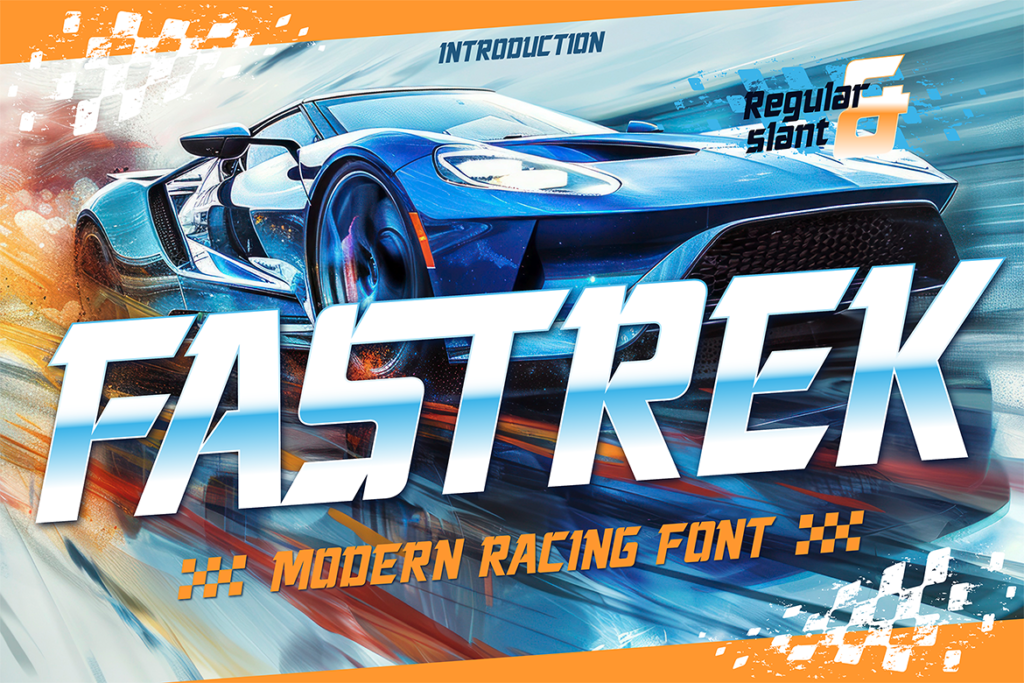
Fastrek is a modern racing font with a sharp, forward-leaning structure that feels built for velocity. It’s bold, dynamic, and instantly reads as fast.
Great for: racing team branding, automotive graphics, and motorsport event posters.
2. Stiger
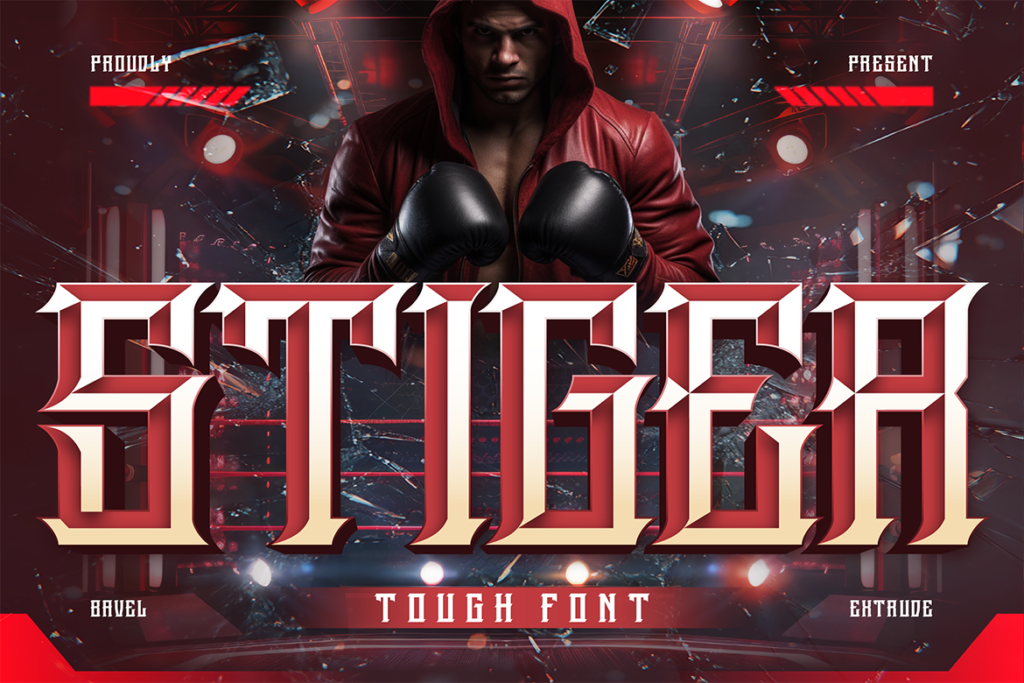
Stiger is a tough font with a distressed, aggressive edge. It brings a raw, hard-hitting energy that works great for anything wanting a rugged, no-nonsense motorsport feel.
Great for: racing merchandise, tough automotive branding, and bold headline graphics.
3. Sencito
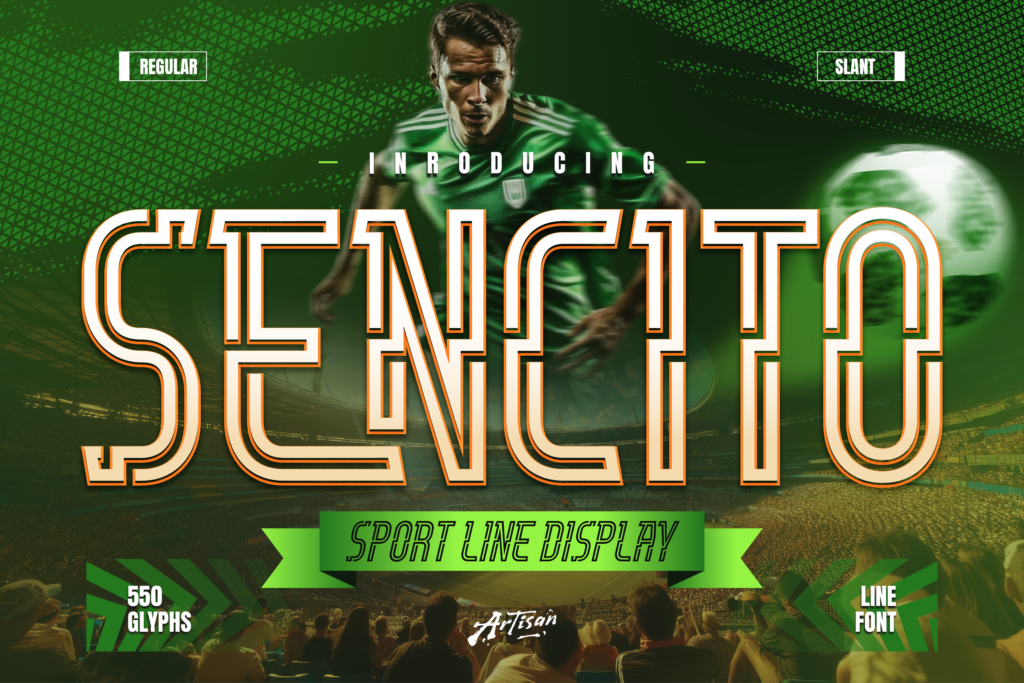
Sencito is a sport line display font with a bold outlined structure, giving it energy and movement without losing clarity. It’s versatile enough for both branding and bold callouts.
Great for: racing branding, sports team logos, and athletic event graphics.
4. Frestype Atlethic
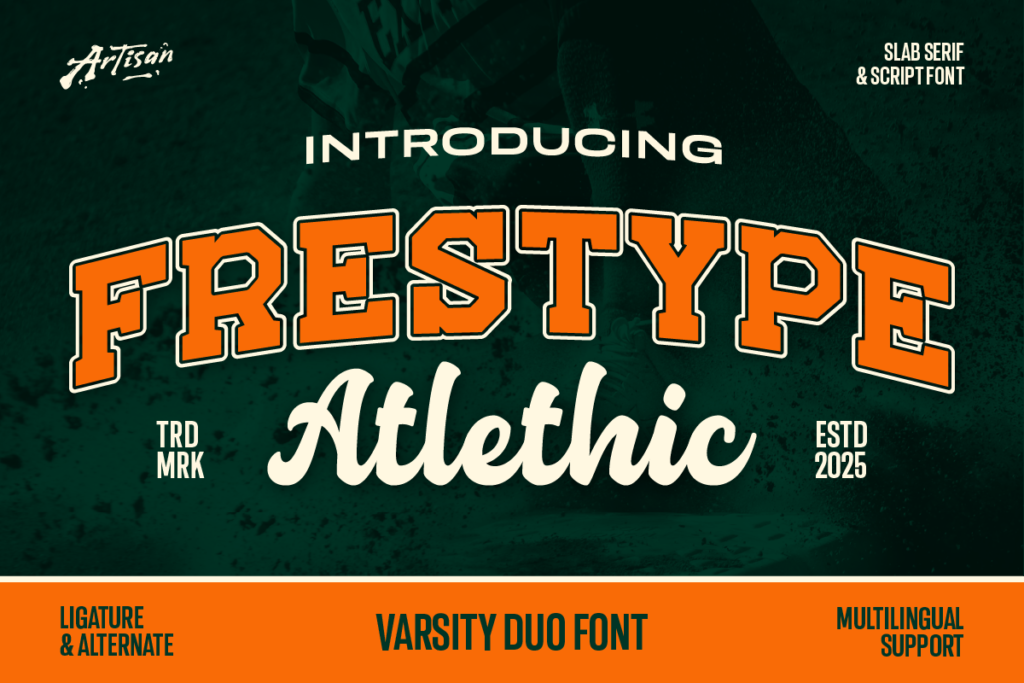
Frestype Atlethic is a varsity duo font that blends an athletic block style with a flowing script, giving you two coordinated looks in one package. It brings that classic sports-team energy with a bit of extra flair.
Great for: team branding, varsity-style merchandise, and athletic event graphics.
Hit the Gas on Your Next Design
Whether you need something sharp and aggressive or bold and athletic, these 4 fonts bring serious speed and energy to racing and motorsport branding.